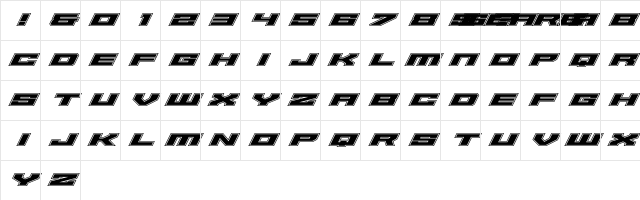
Gear6 Outline
Style: Outline
Foundry: Youssef Habchi
Designer: Youssef Habchi
Design Context for Gear6
Gear6 is built around its visual character rather than neutral utility - its distinctive forms are designed to make an impression at display sizes.
Font Pairing: Pair with a clean neutral sans-serif for body copy to let Gear6's character lead without overwhelming the composition.
Pro Tip: Use Gear6 exclusively at display sizes - it was designed to be seen, not read at length. Let a neutral companion handle body copy.